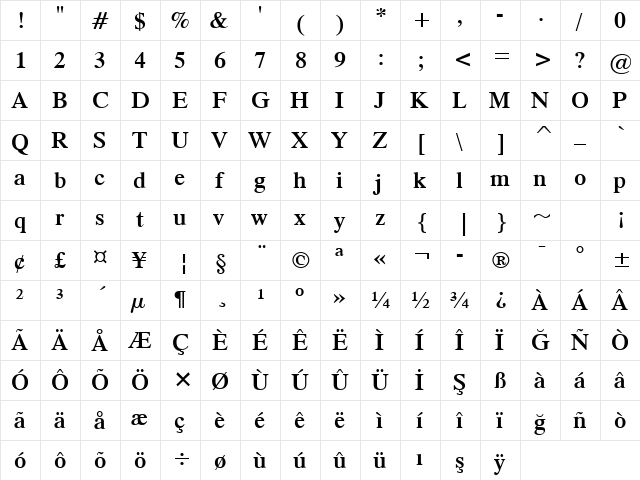
Dutch801 SeBd BT Semi-Bold Font Preview
Dutch801 SeBd BT Semi-Bold
Design Context for Dutch801 SeBd BT Typeface
Dutch801 SeBd BT takes a measured approach to typography — its balanced proportions and neutral character make it a reliable workhorse for both digital and print work. Its bold stroke weight gives it real presence on the page.